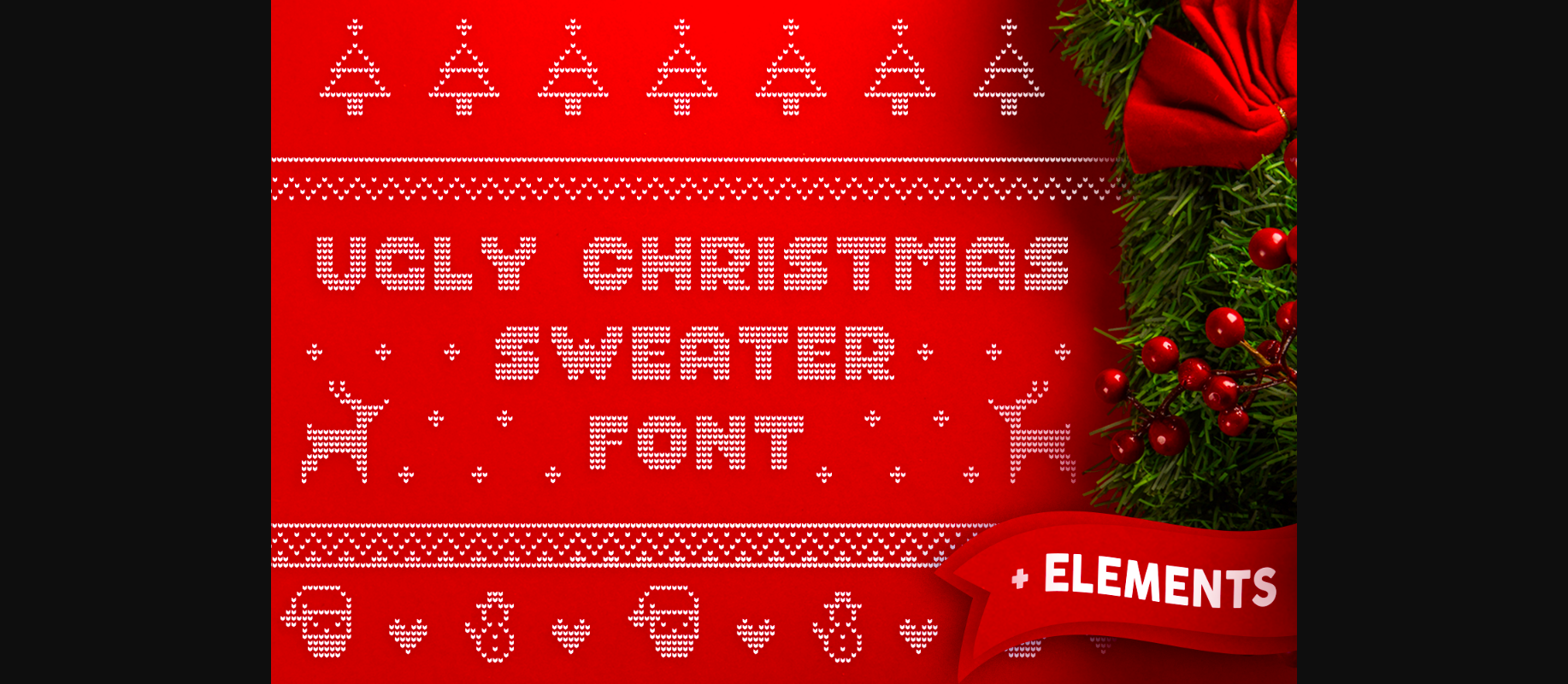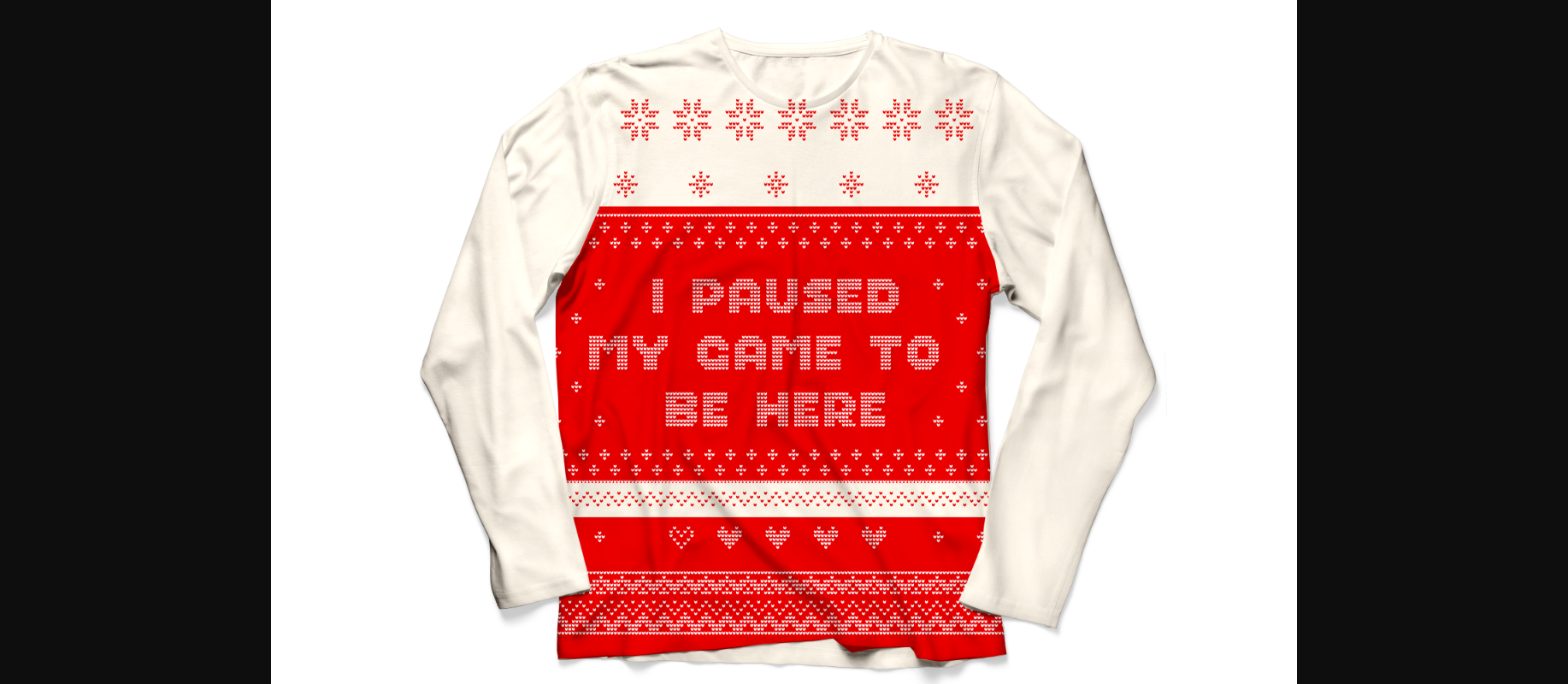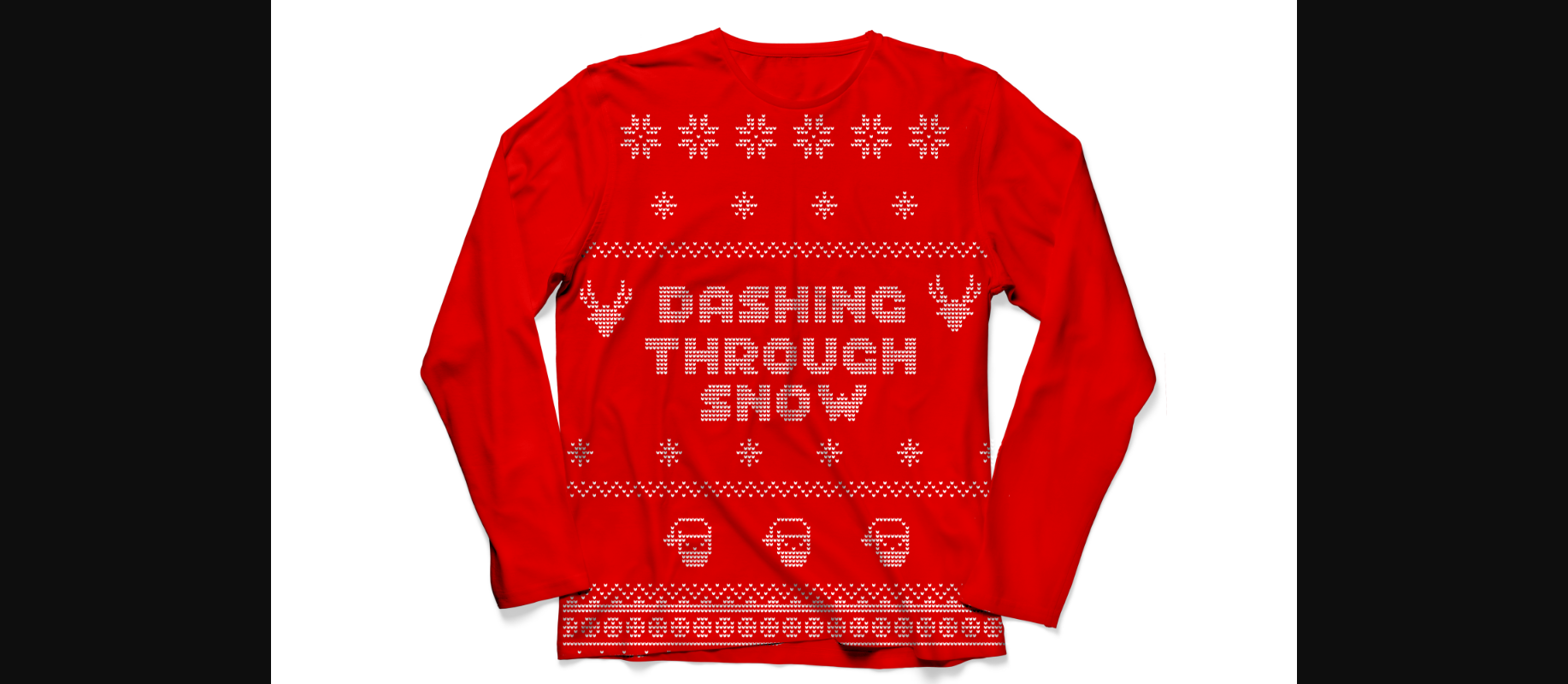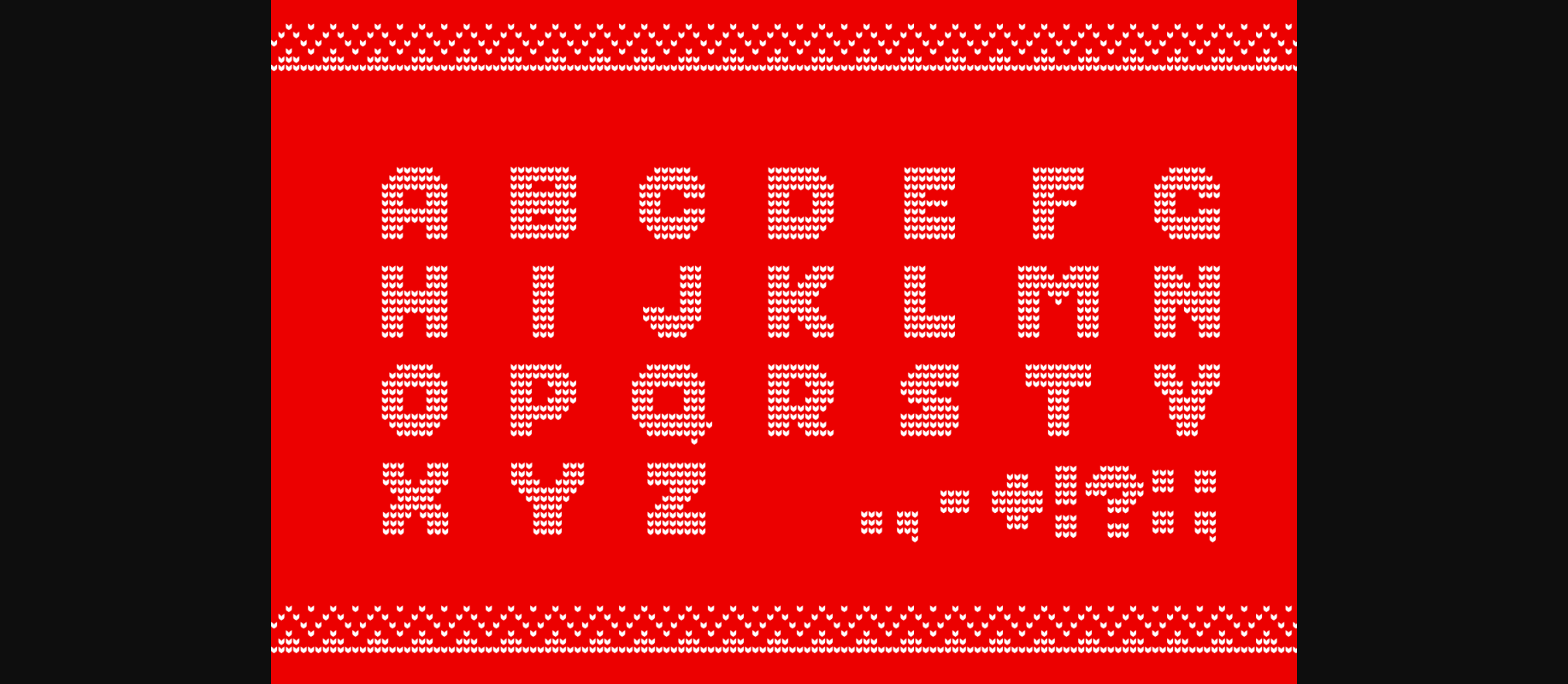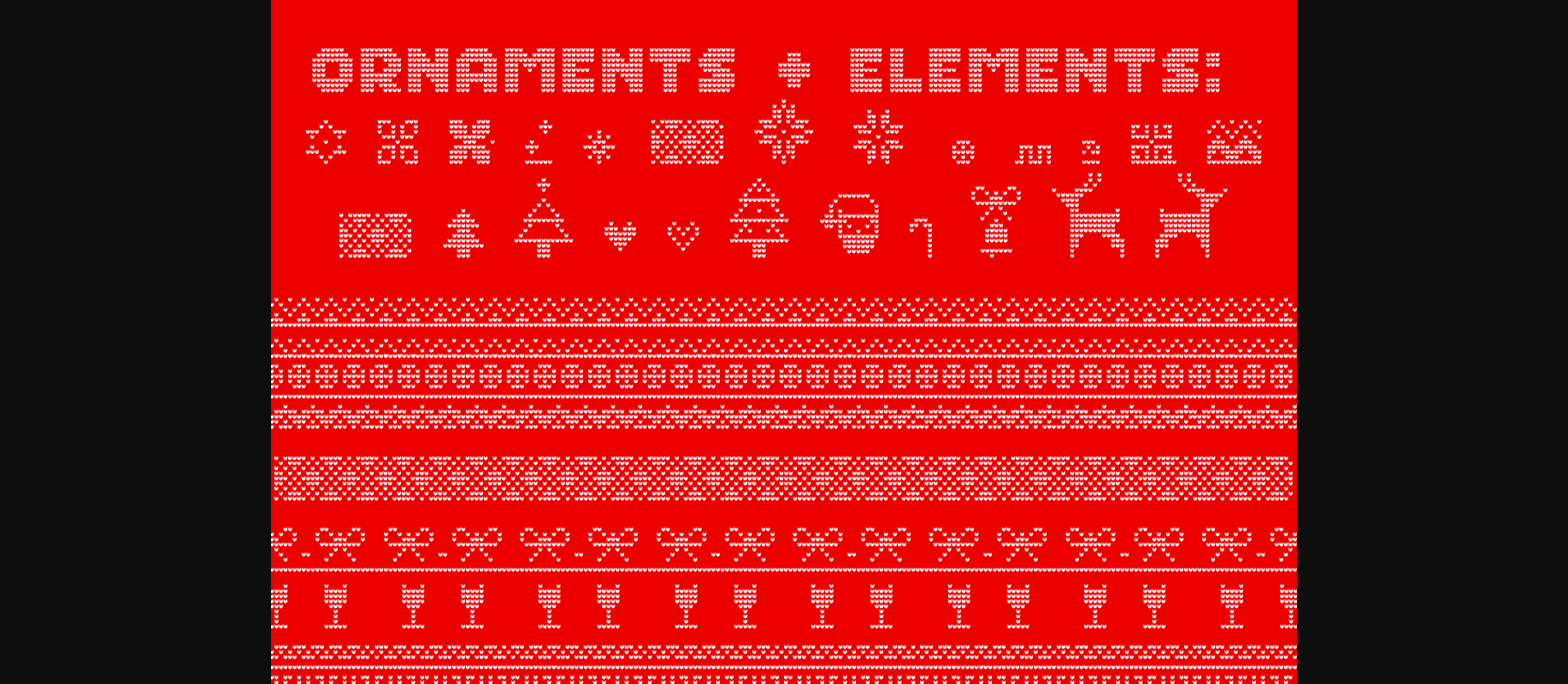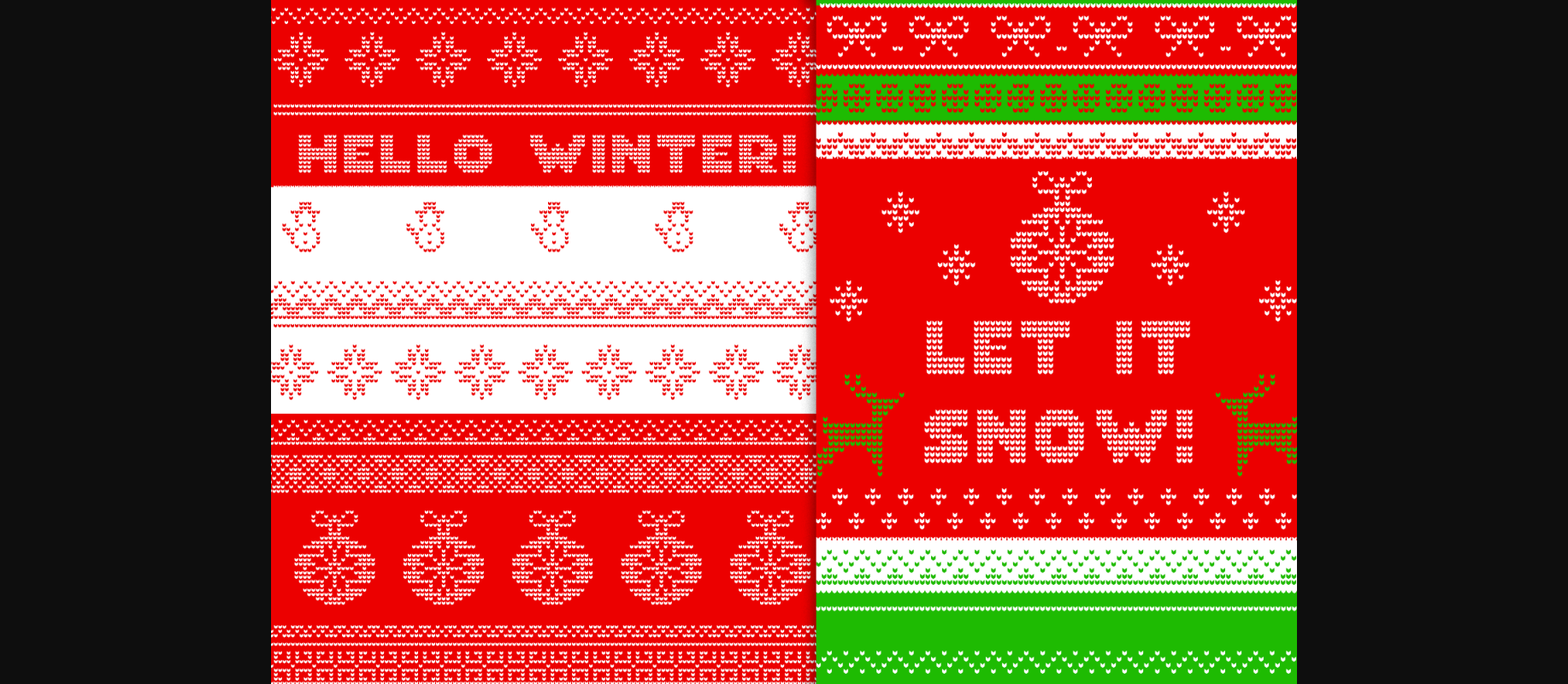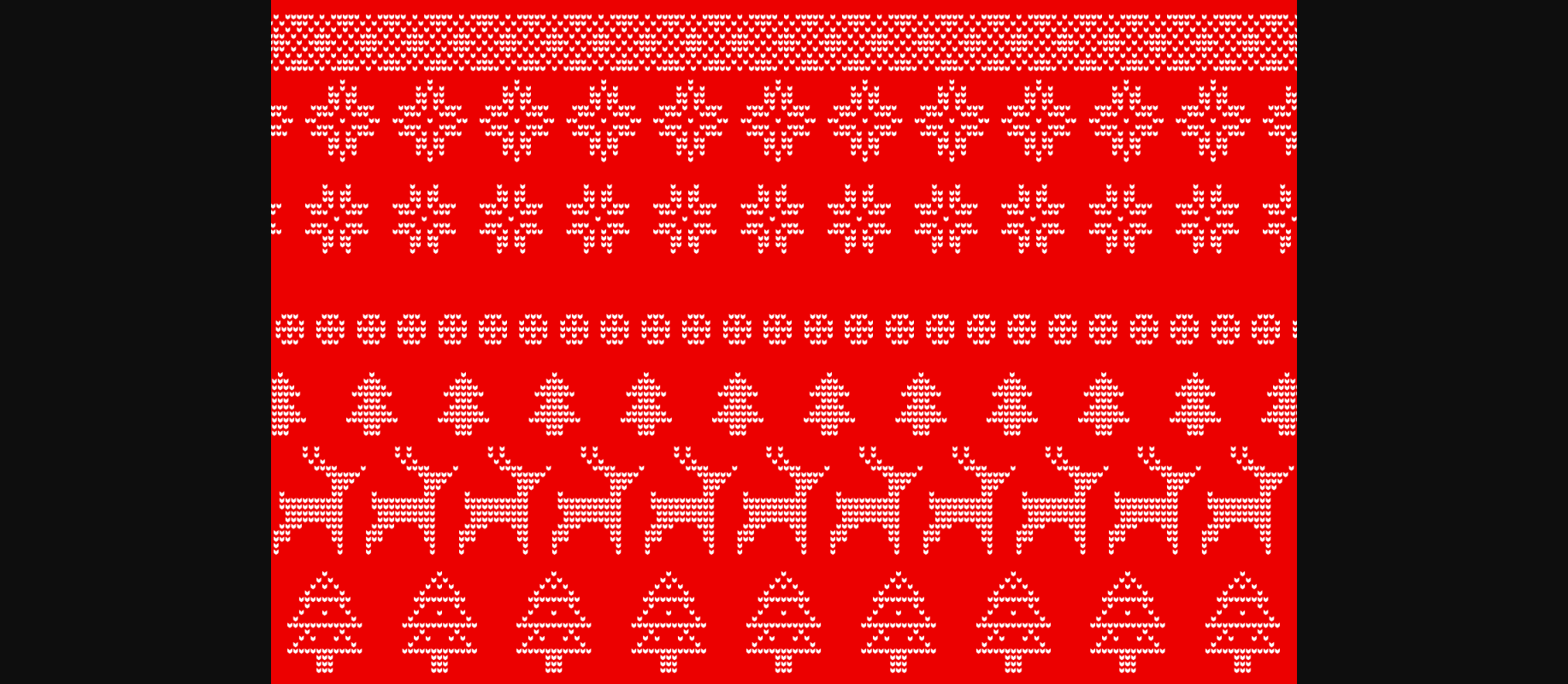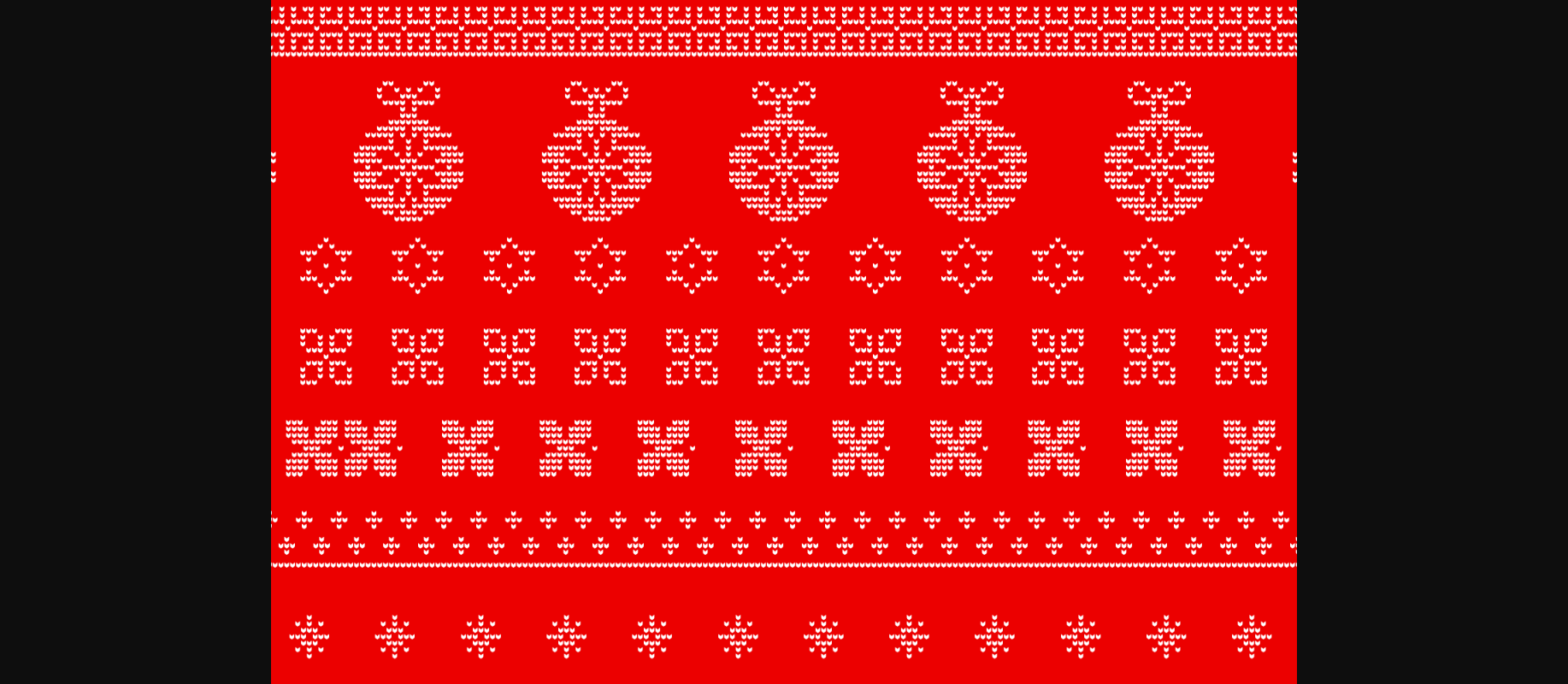
Ugly Christmas Sweater Font
About Ugly Christmas Sweater Font
Ugly Christmas Sweater is created from scratch, using as little points as possible to ensure that you get the best results with minimum difficulty. This decorative font will make each of your Christmas card look amazing.